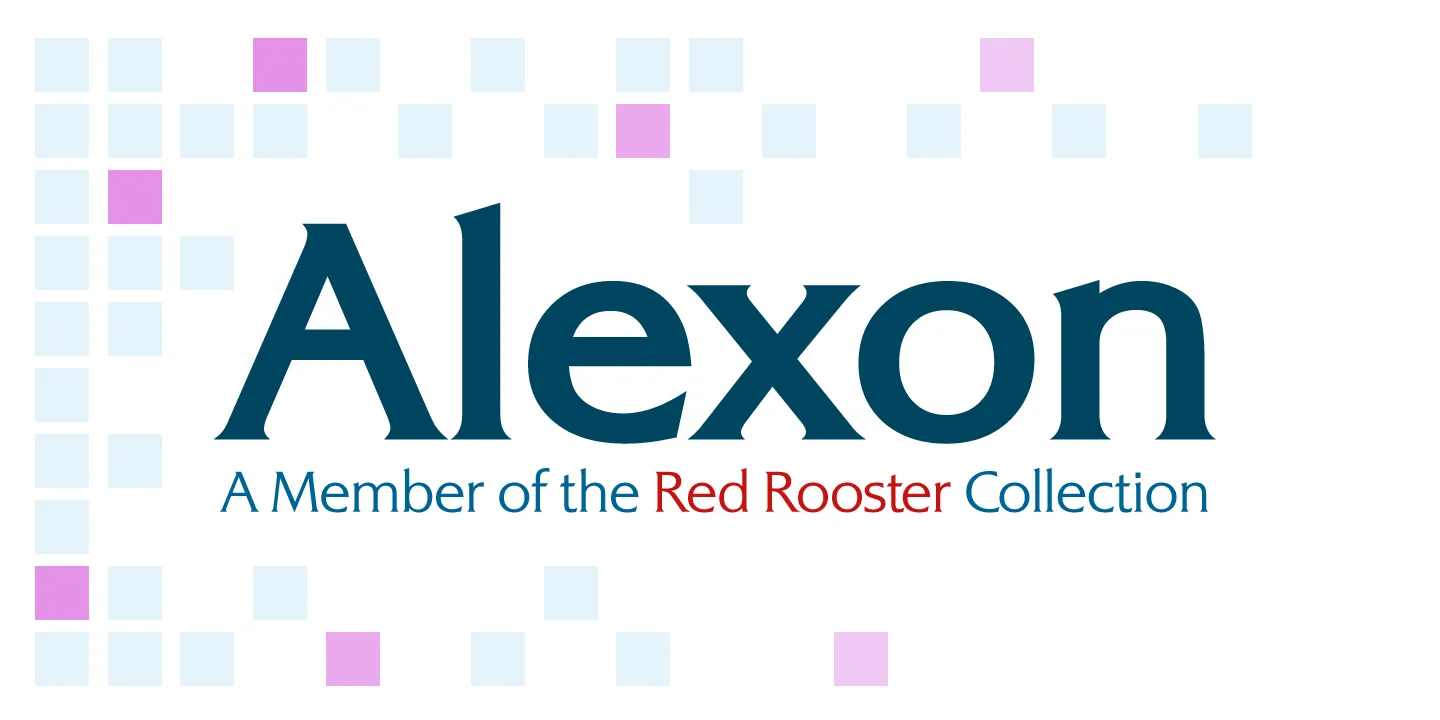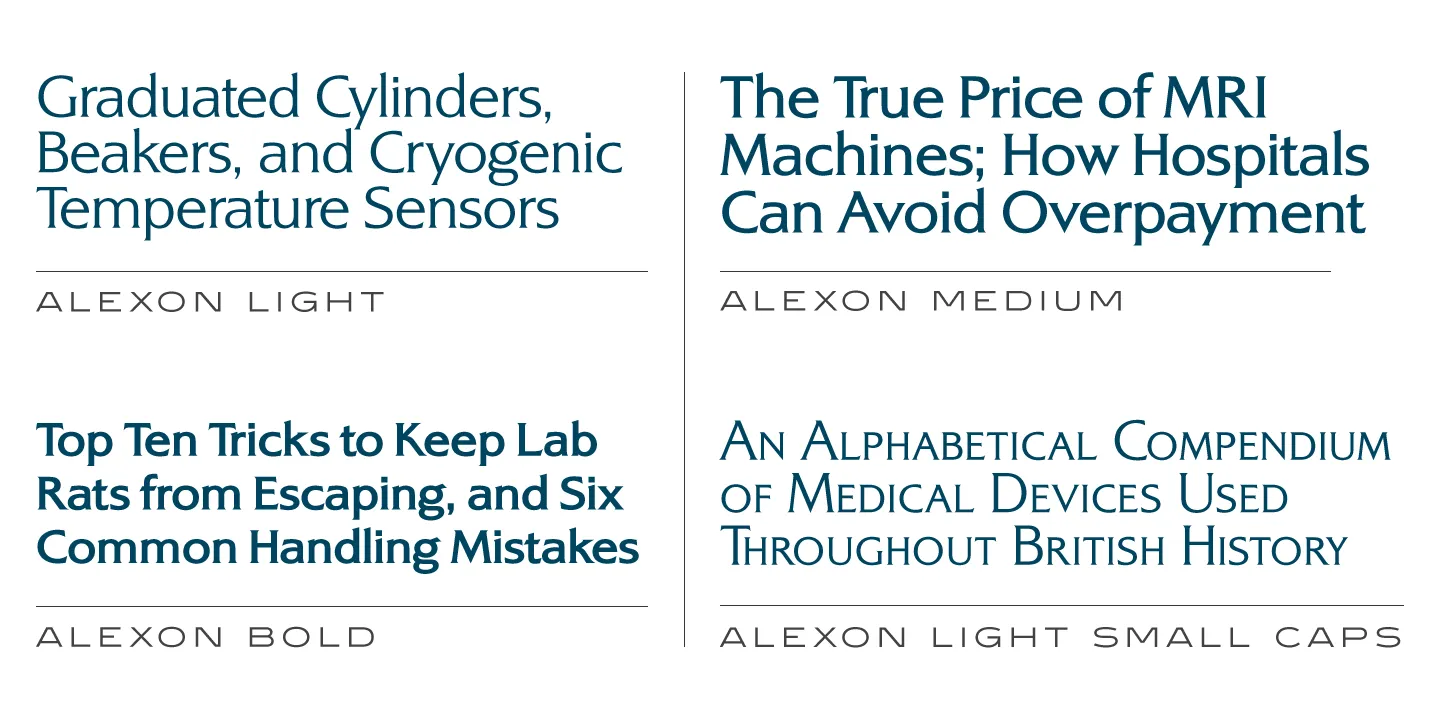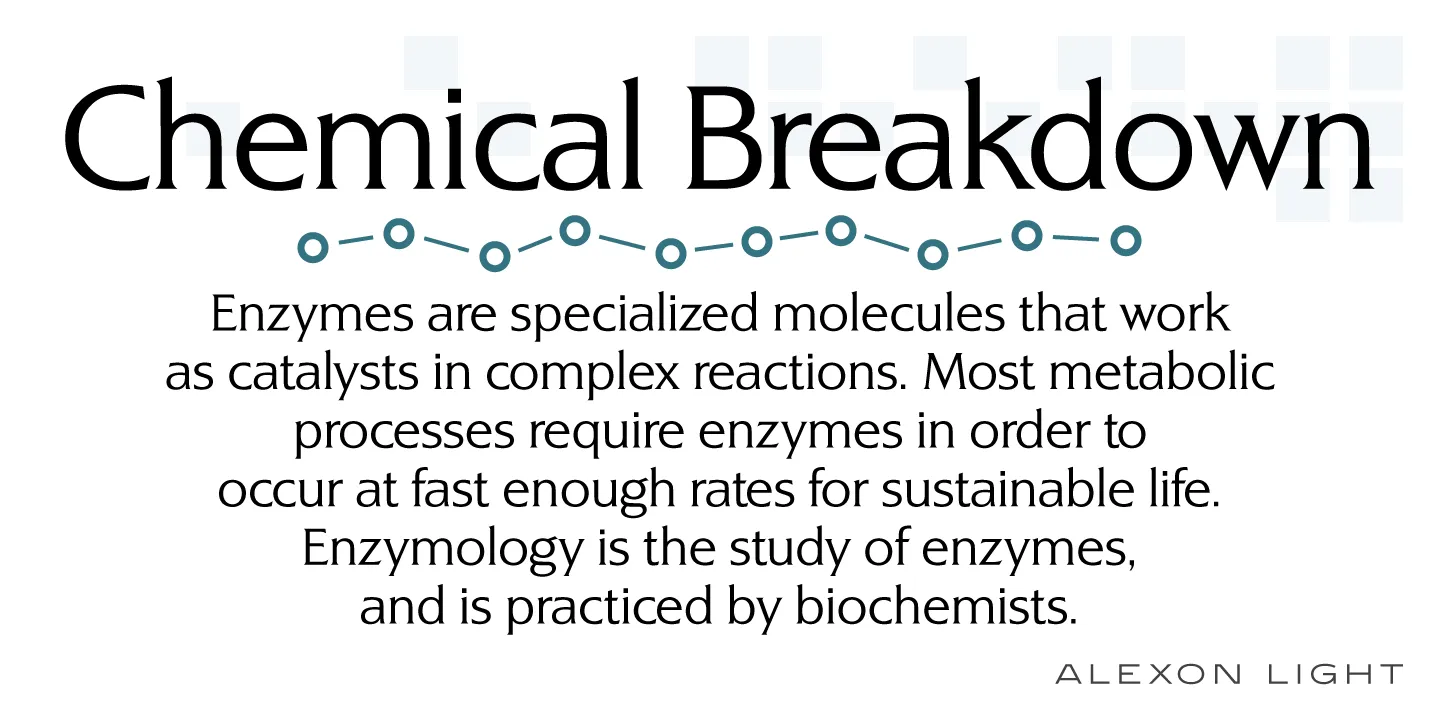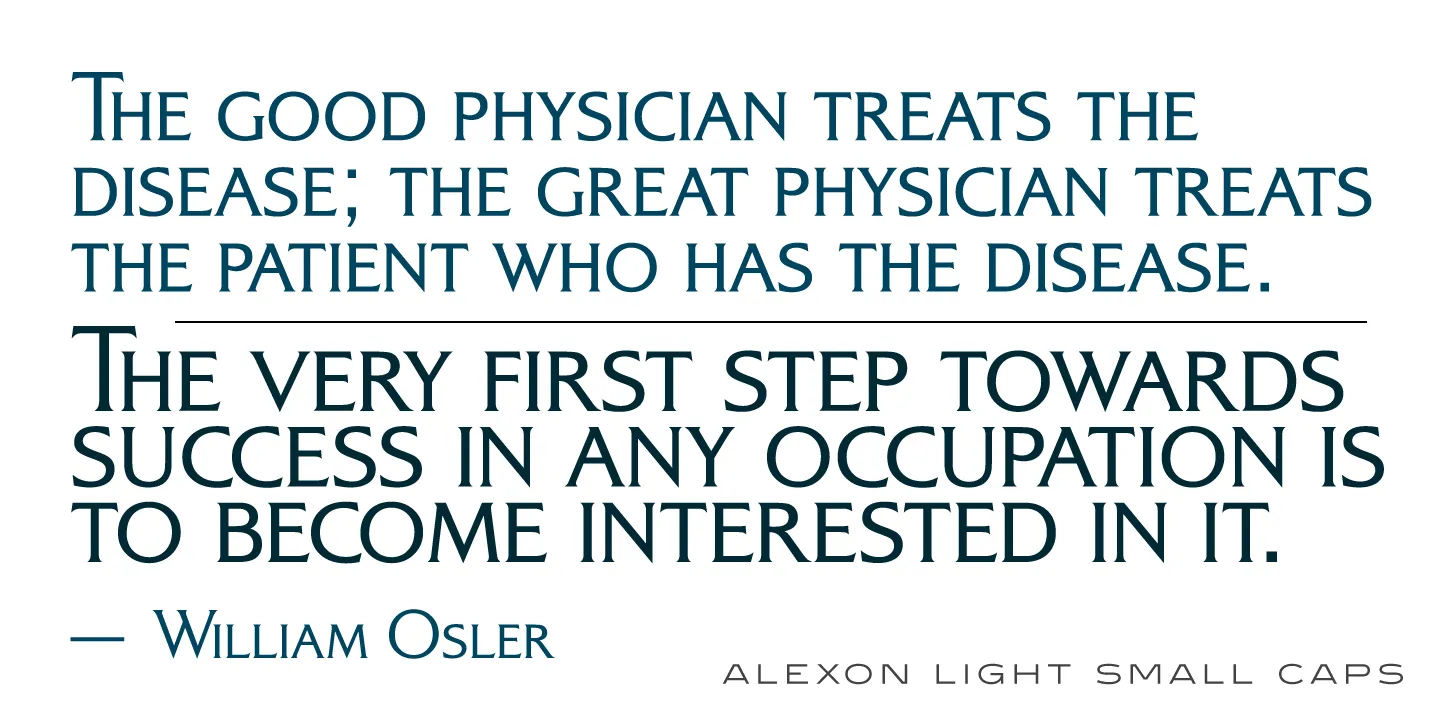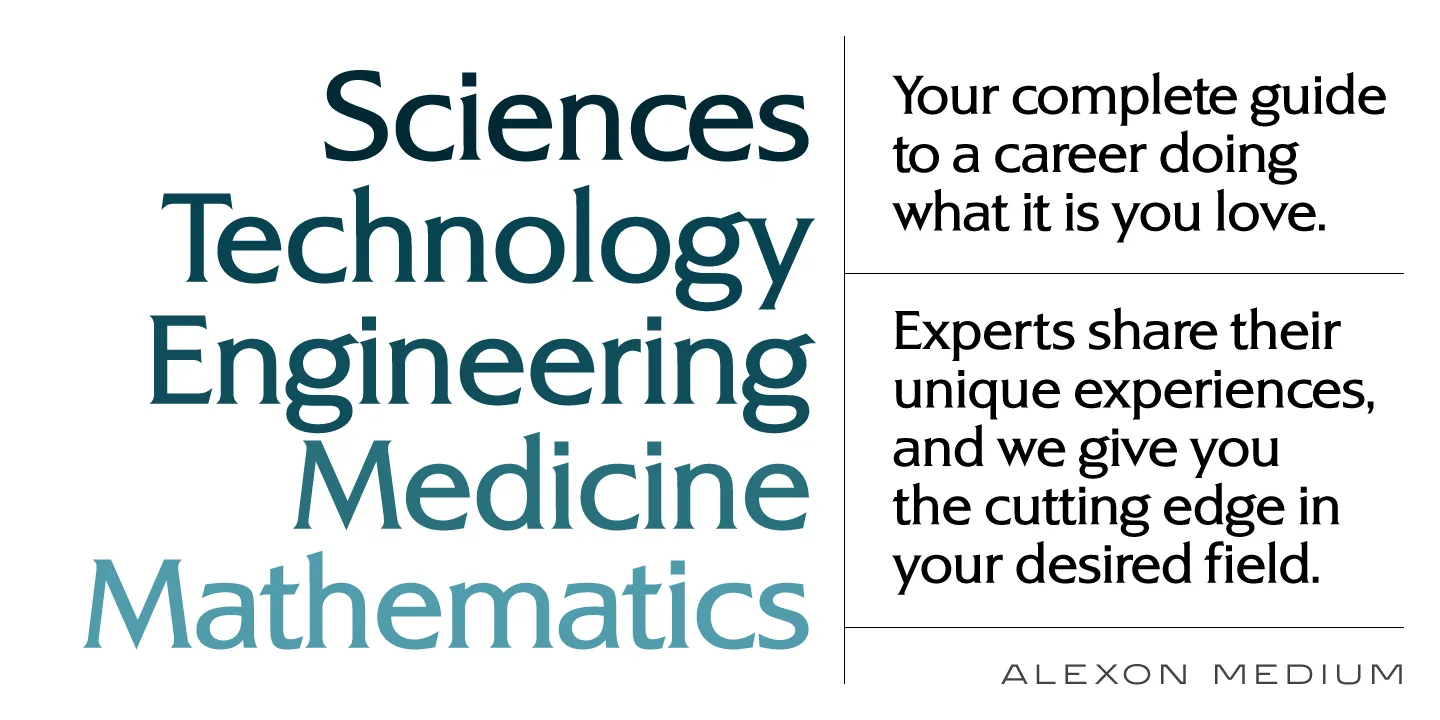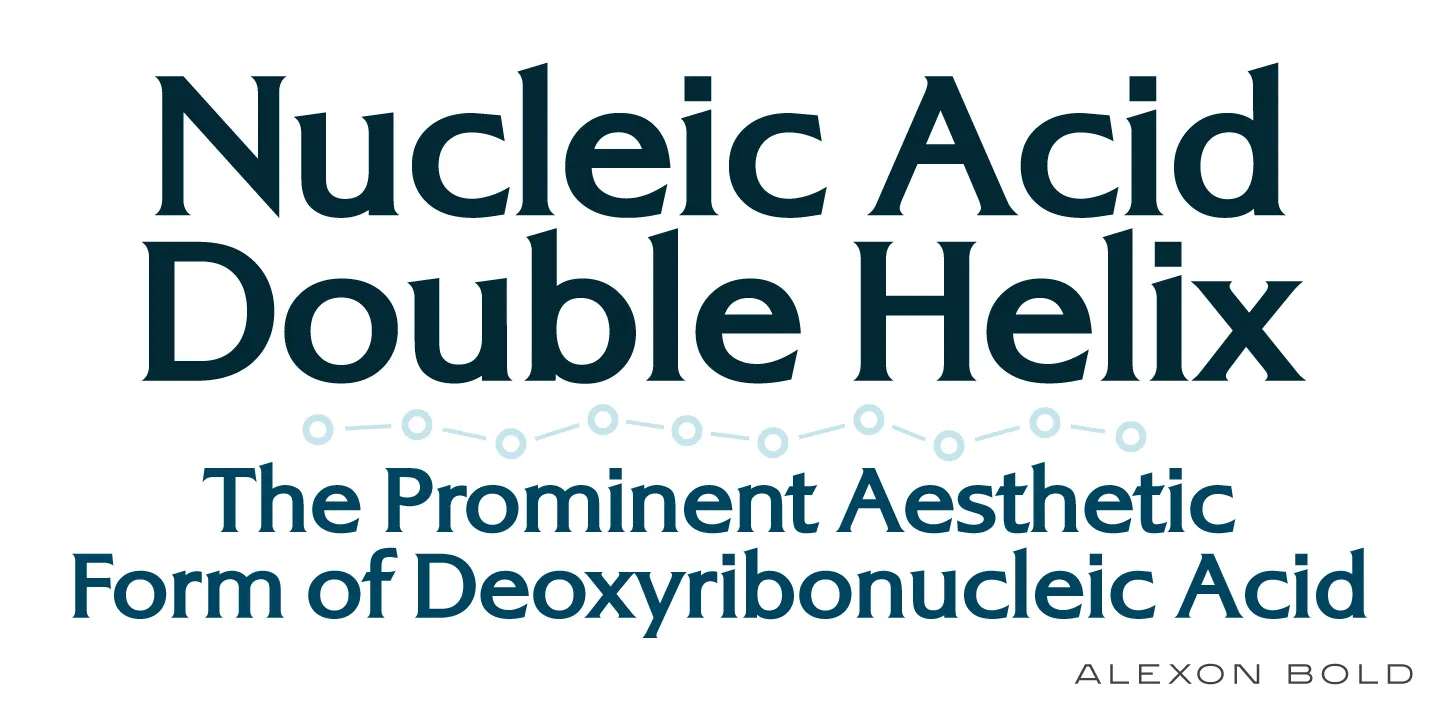
Alexon Font Family
Alexon is a serif font family. It was originally designed by Les Usherwood (Typsettra), and was digitally produced by Steve Jackaman (ITF) in 1992 exclusively for the Red Rooster Collection. Alexon began its life as a single weight, however Jackaman expanded on the original designs and produced three additional weights. Alexon was inspired by ‘Basilea,’ a font created by Markus J. Low in 1965 for Visual Graphics Corporation (VGC). Basilea won first prize in the 1965 National Typeface Design Competition. Alexon has a formal, clean feel, and would be right at home in medical journals or professional mastheads. The family emits confidence and sets well at any size.
Styles included • Light • Light Small Caps • Medium • Bold